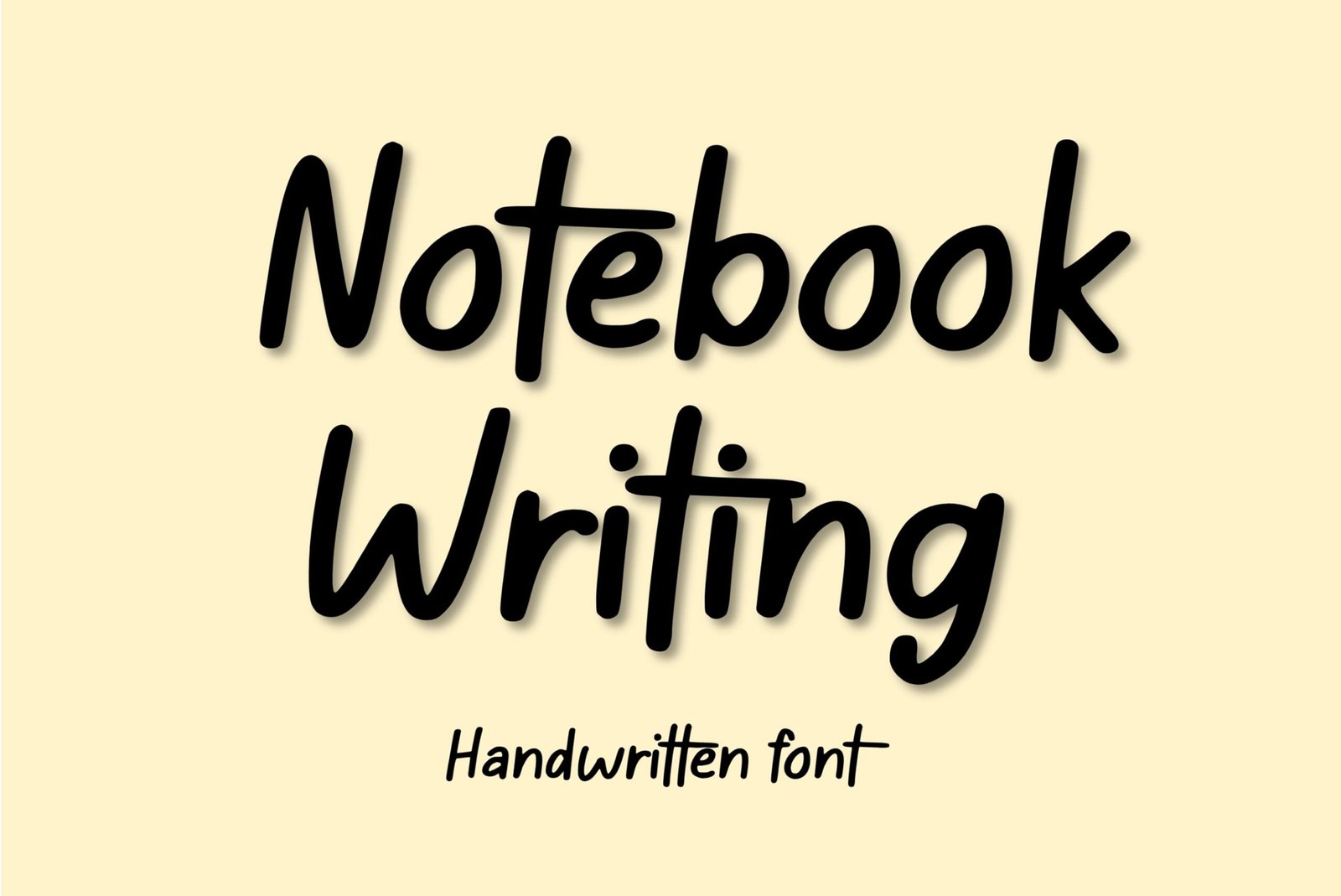
Notebook Writing Font
Handwritten note taking font. “Notebook Writing”. Perfect for goodnotes, note taking, advertising and display purposes, including banners, book covers, shirts, posters, logos and much more!
Font includes all upper and lowercase letters, numbers, characters, and punctuation.